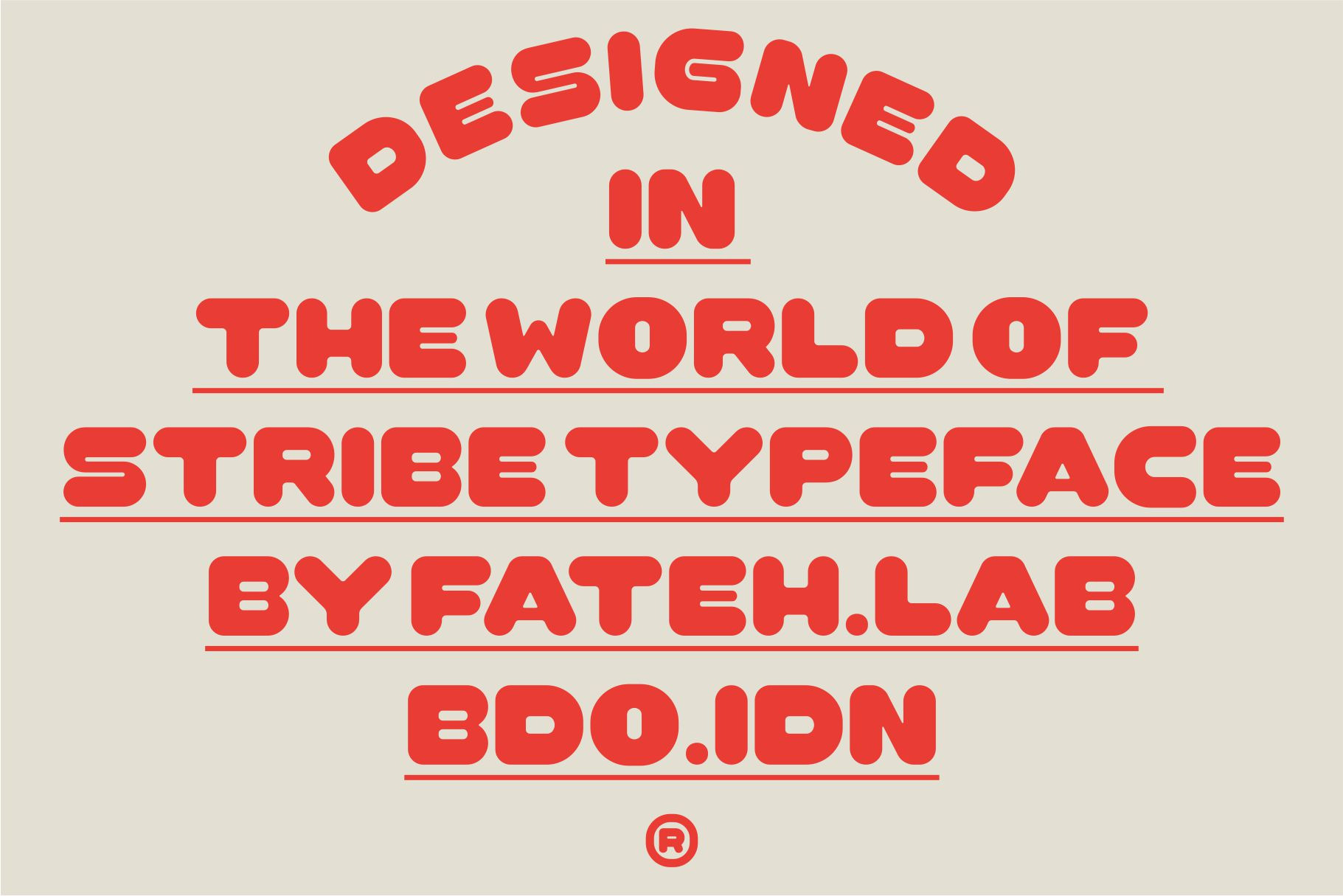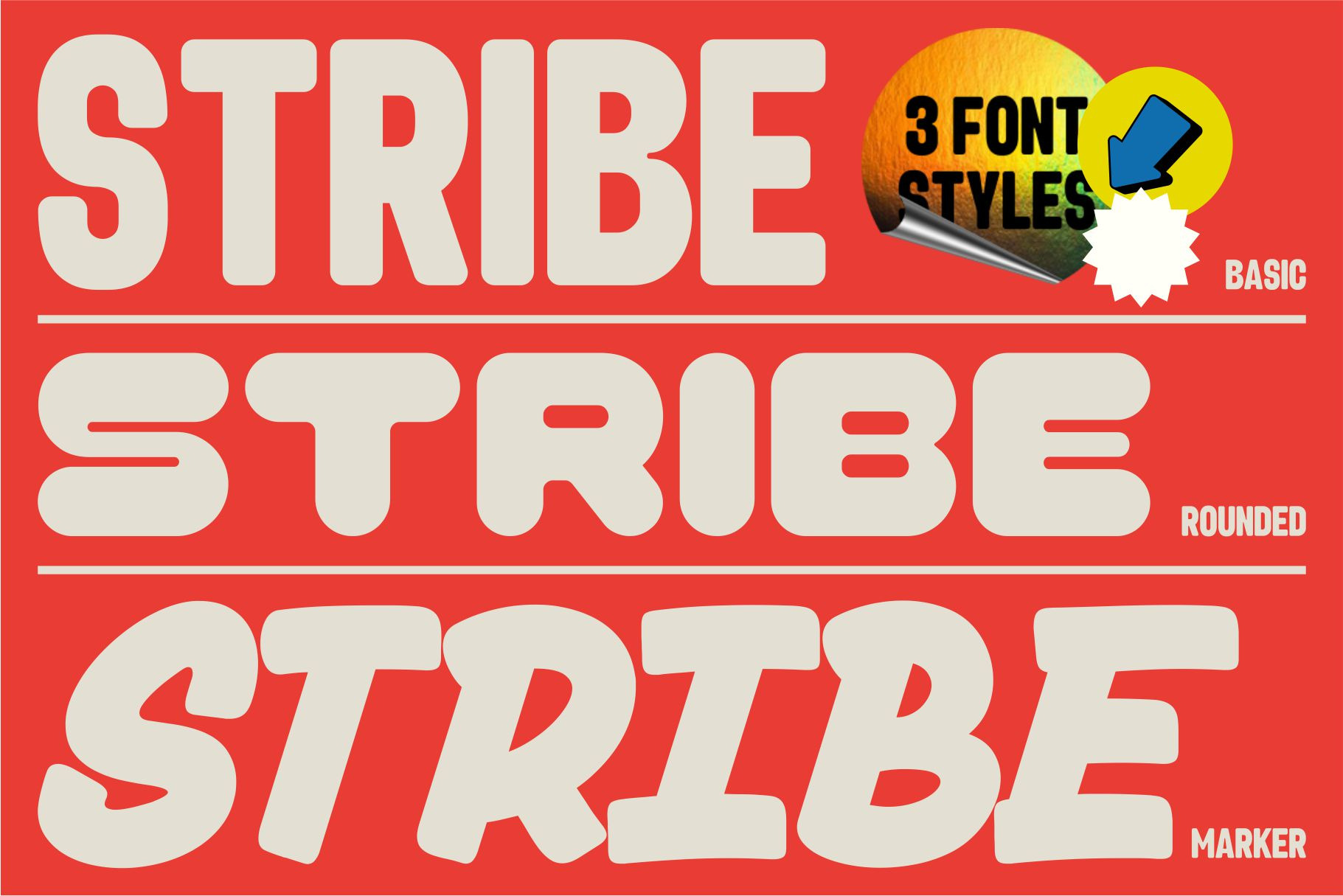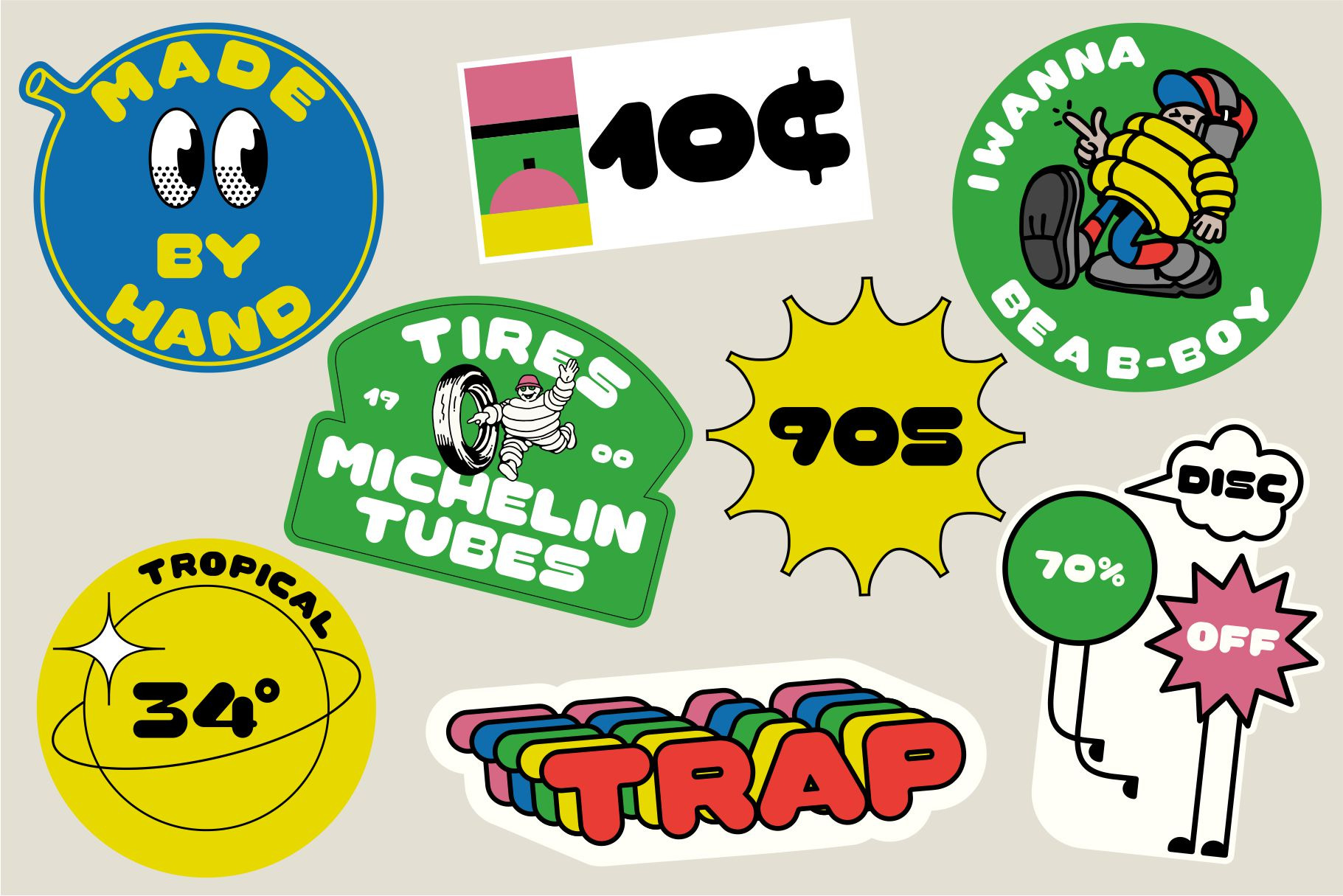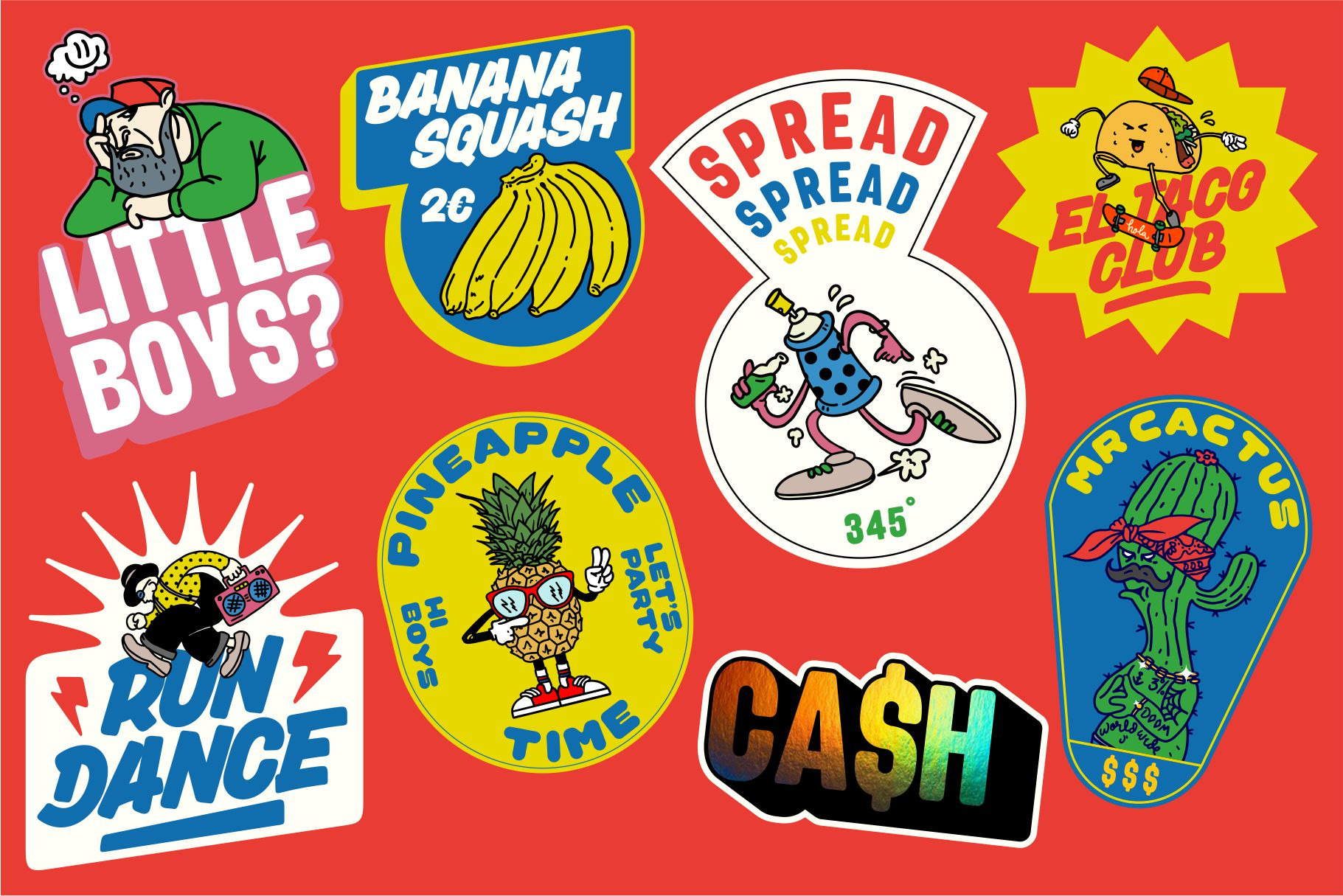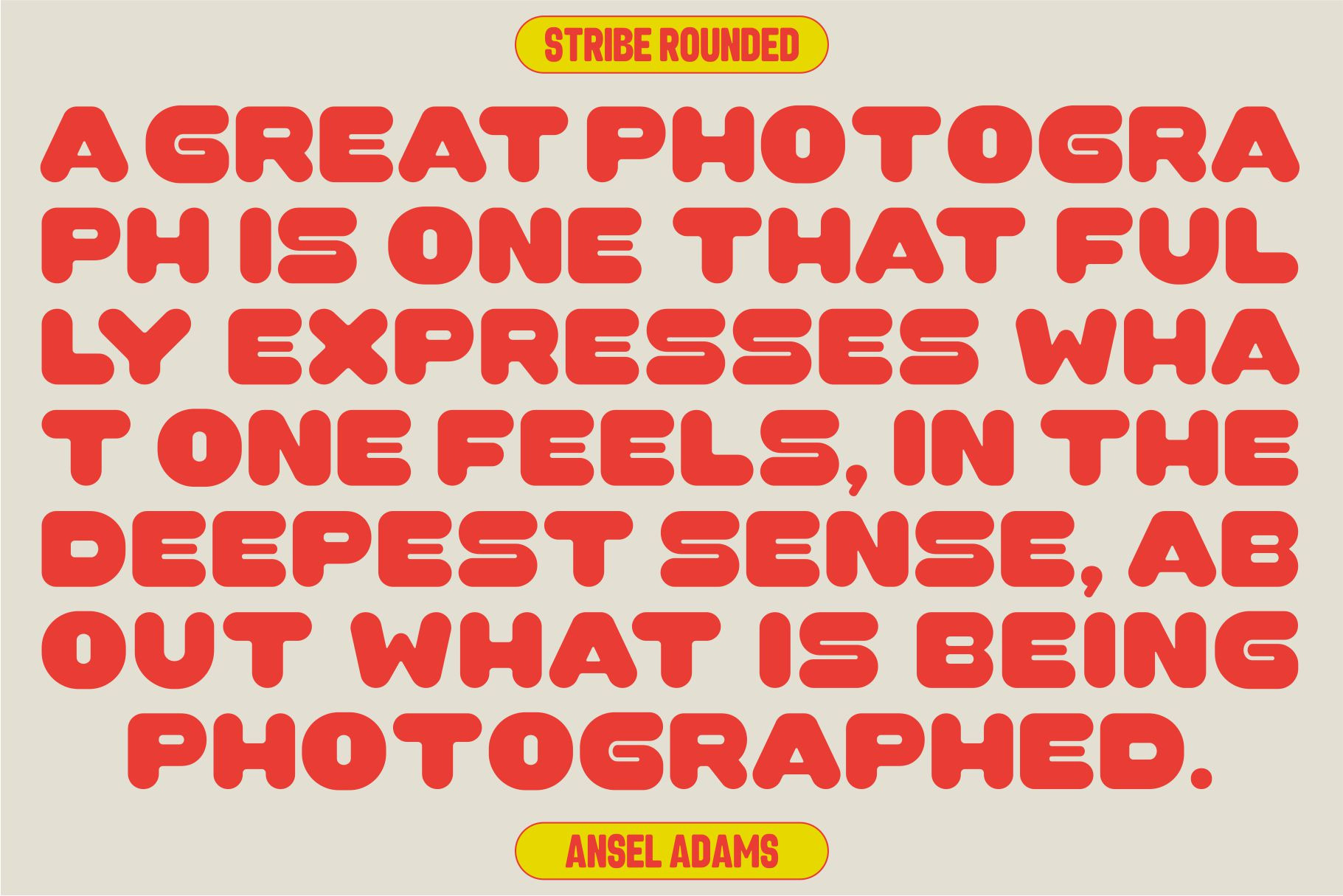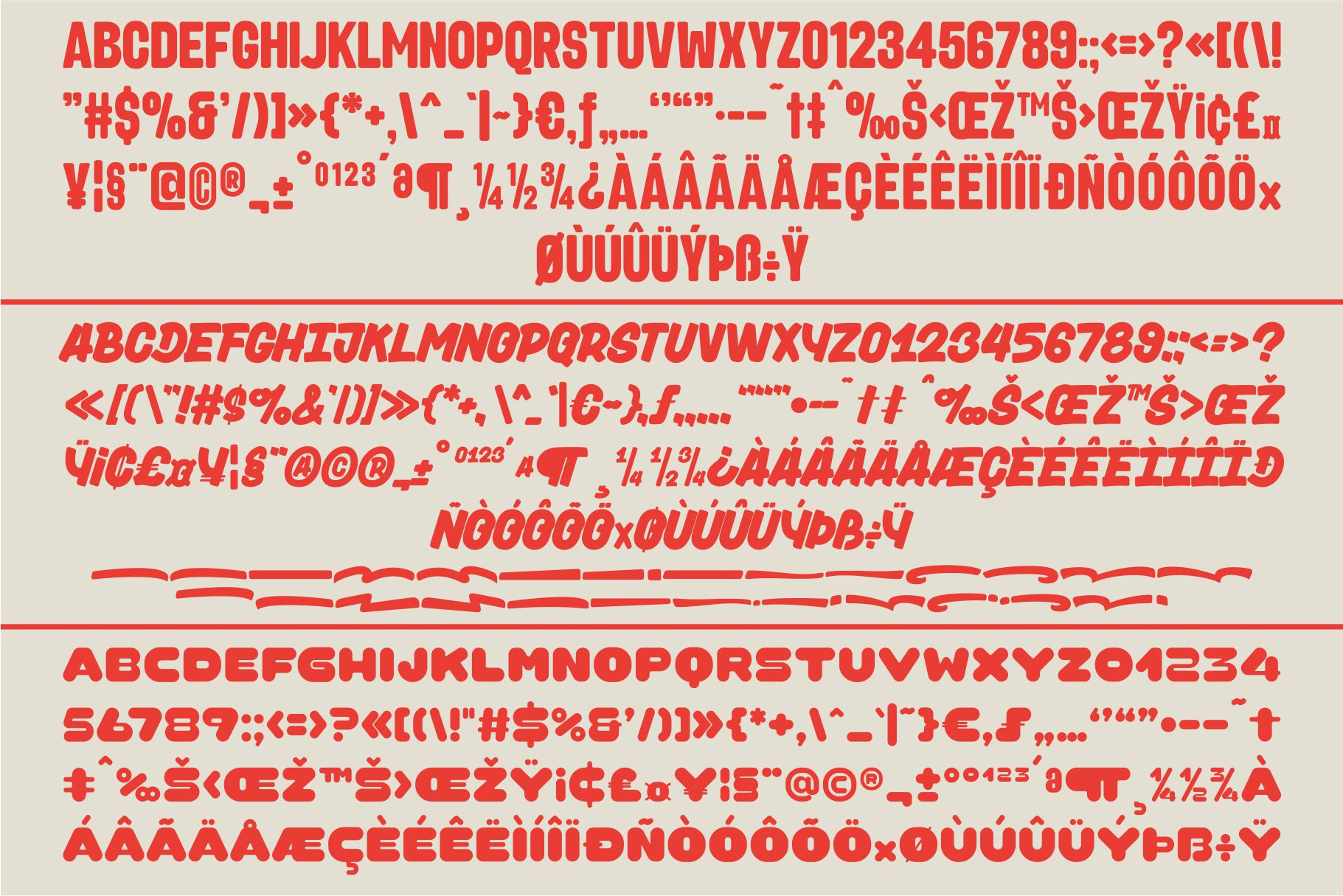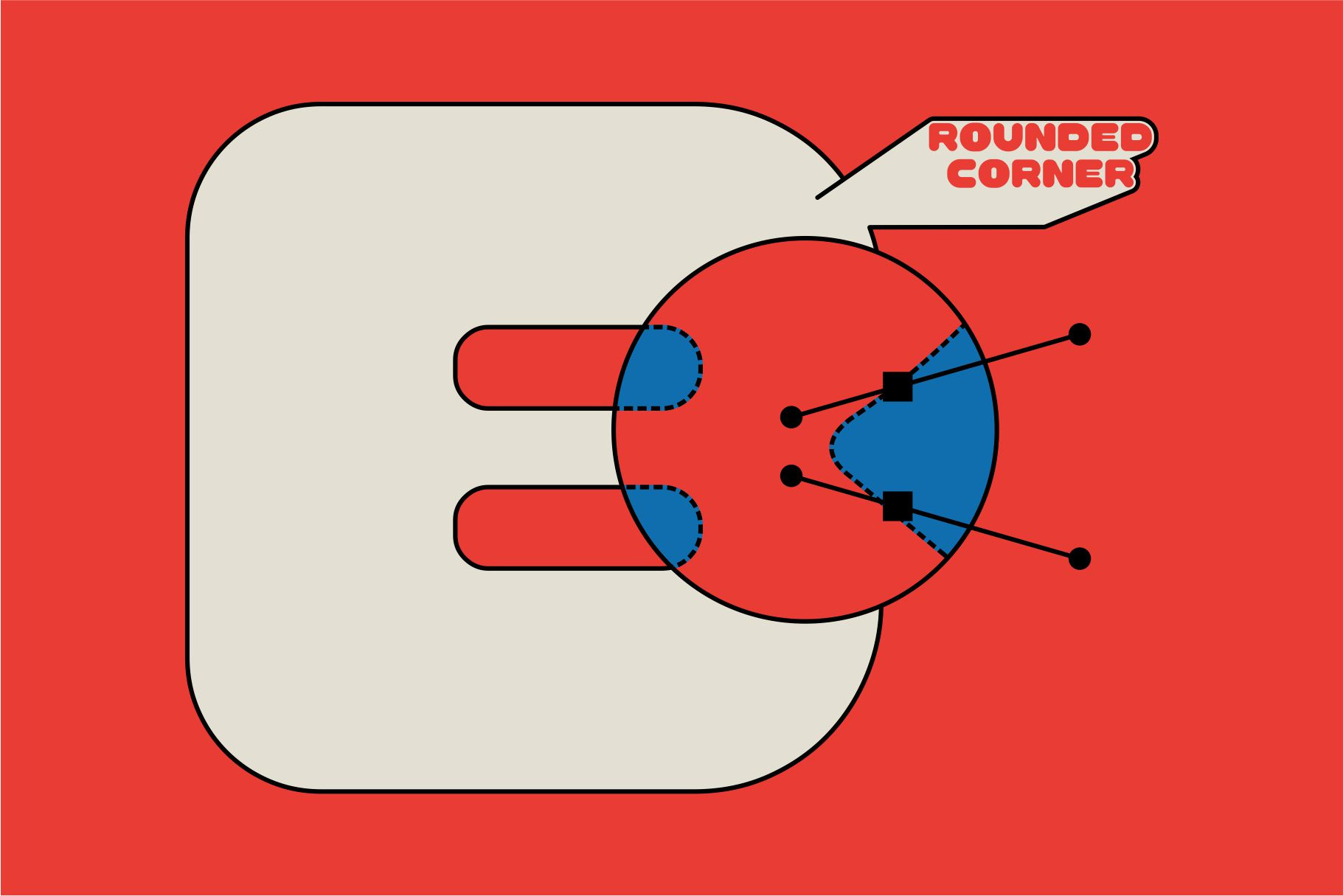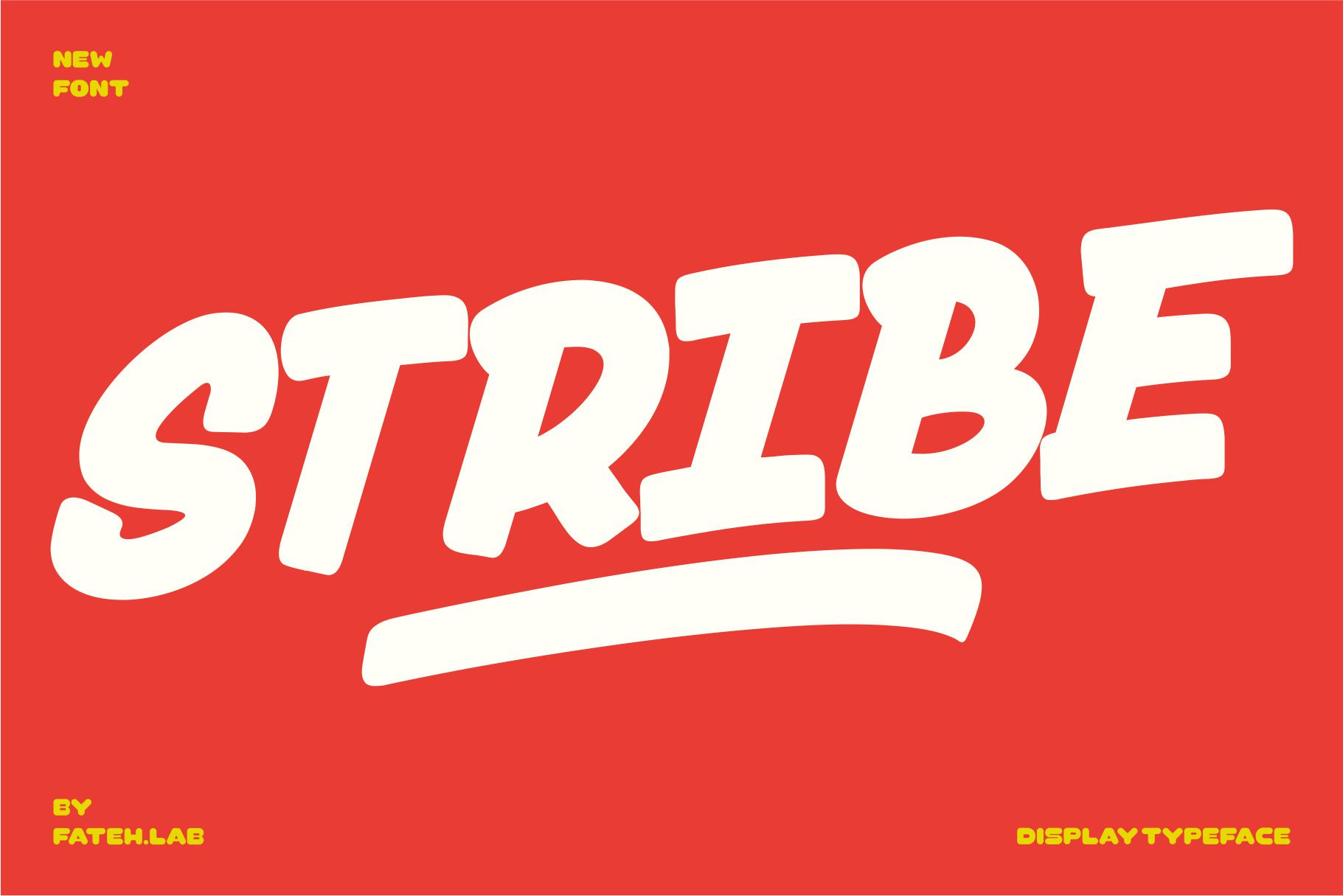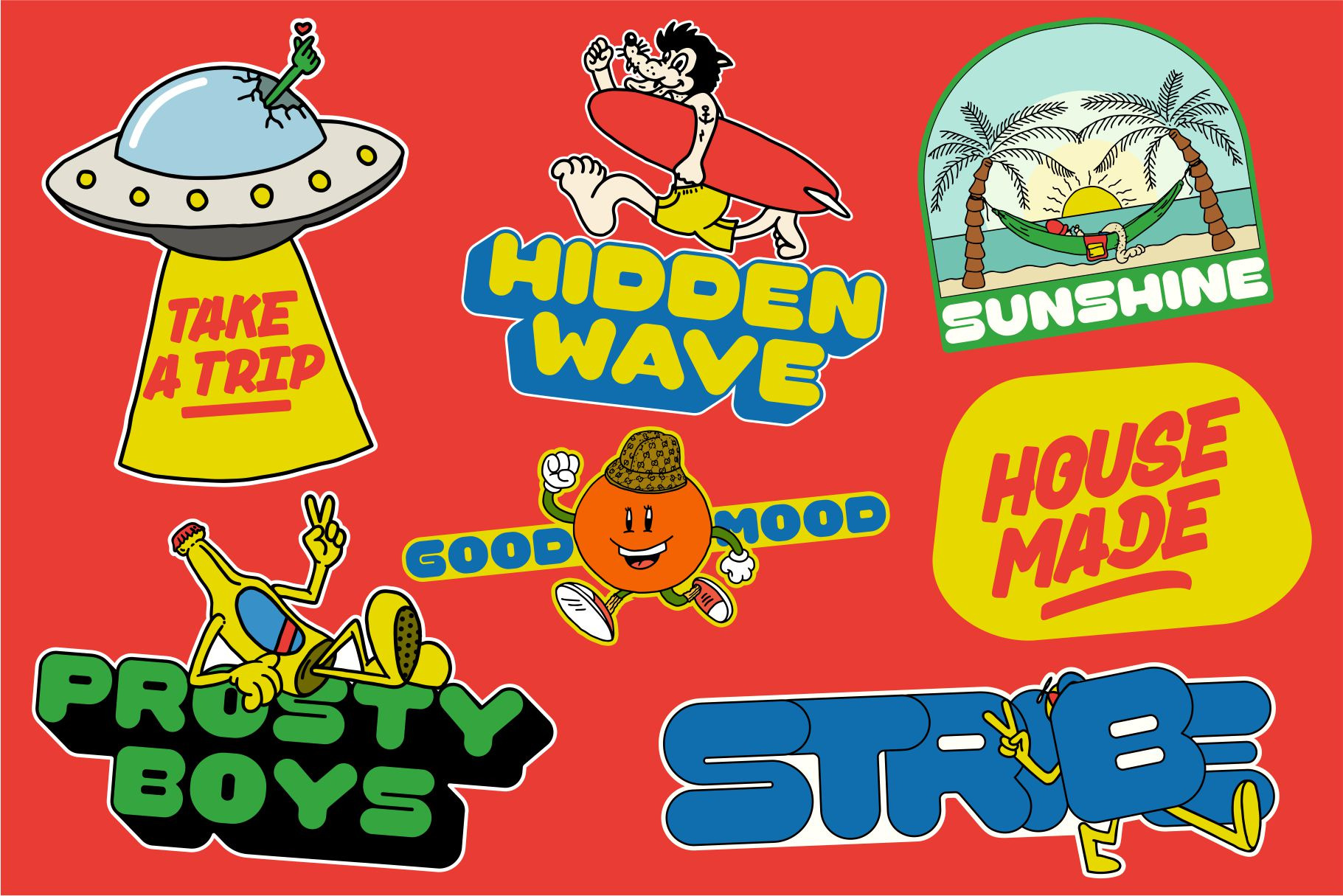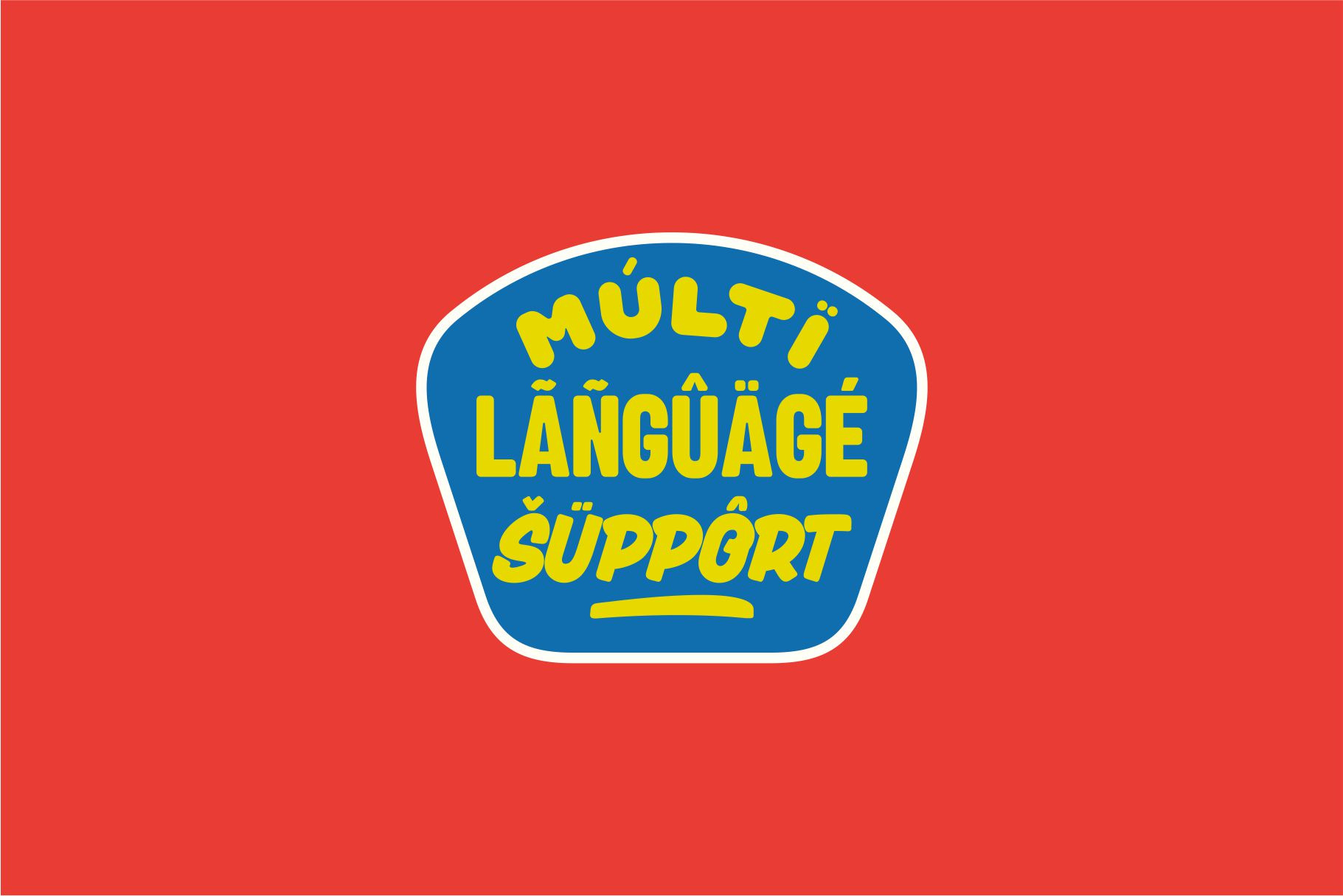
Stribe, this is an amazing work. Why ... because this is not just talking about fonts, but more than that, with the spirit of Street Art, stribe invites you to explore with your wild ideas, I'm sure this will really make you feel happy in creating the work that you will wake up to the front. Supported by 3 font choices that are very sweet and also strong, stribe answers all your difficulties in choosing font support that suits your taste. And the most exciting thing is, you get a free bonus vector illustration that is very detailed and also has a very strong Street Art spirit, and is made very original, so what are you waiting for, have Stribe as soon as possible. Thank You | Stribe | Urban Display Fonts | FatehLab